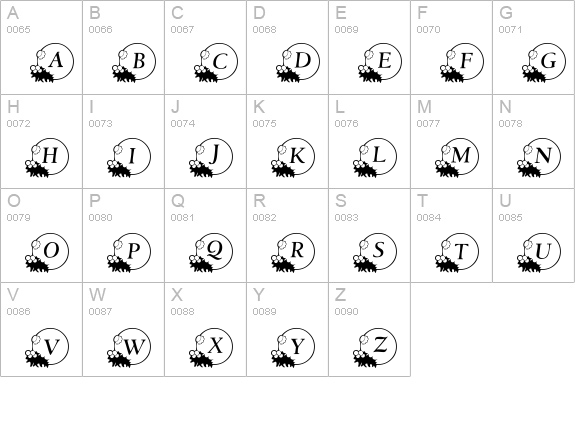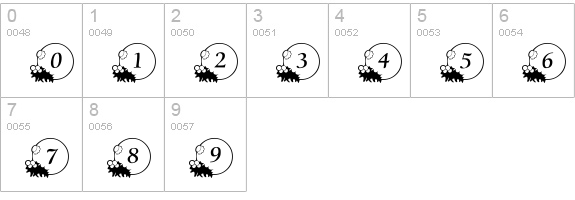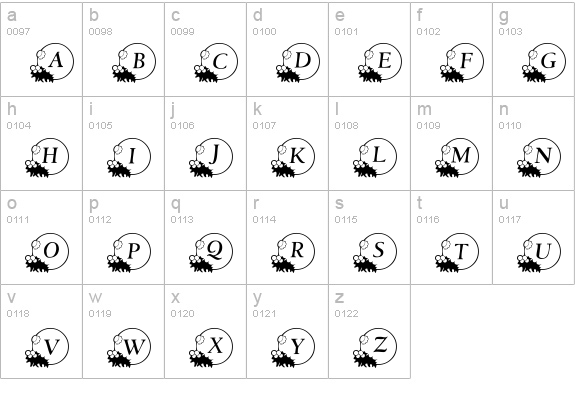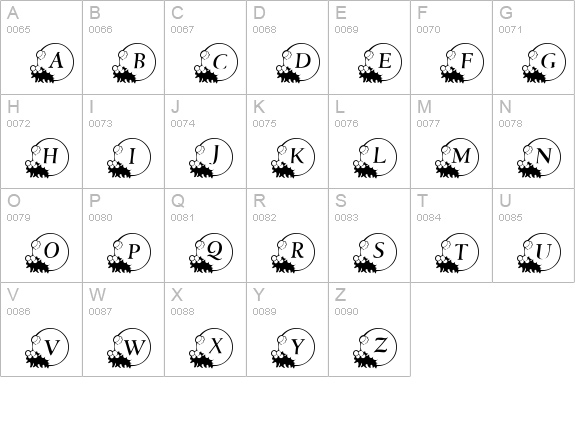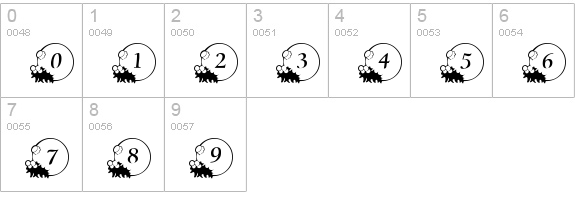
Step into the festive season with the 101! Holiday BallZ font, a delightful and whimsical typeface that captures the spirit of the holidays in every letter. Perfect for adding a touch of cheer to your designs, this font features playful ornaments and decorative elements that will bring joy to any project. Whether you're creating holiday cards, party invitations, or seasonal banners, the 101! Holiday BallZ font will add a festive flair that is sure to delight. With its unique design and eye-catching style, this font is the perfect choice for adding a touch of holiday magic to your creations. Best of all, the 101! Holiday BallZ font is available for free download at FontsMarket.com. So go ahead and spread some holiday cheer with this charming and whimsical font that is sure to make your designs stand out this holiday season.